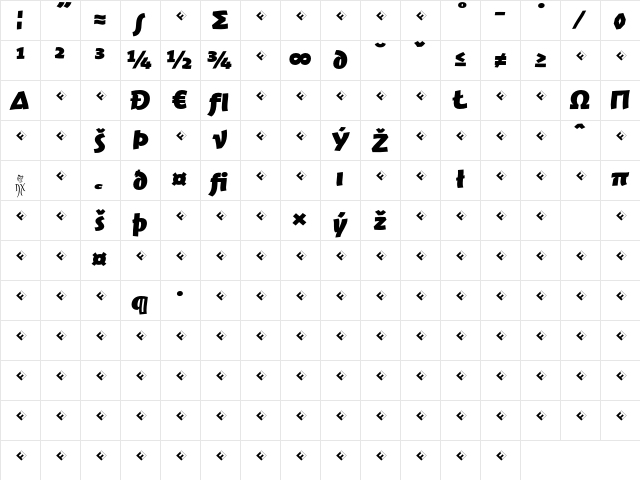
Complete JambonoTF-BlackExpert Regular glyph index. Displaying only characters natively supported by JambonoTF-BlackExpert Regular font.
JambonoTF-BlackExpert is a composed and adaptable typeface that performs quietly and consistently across a wide range of design contexts.